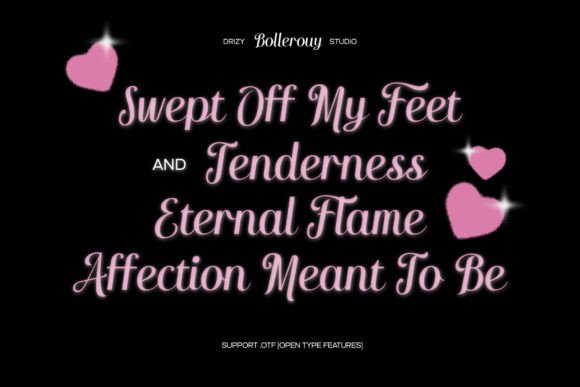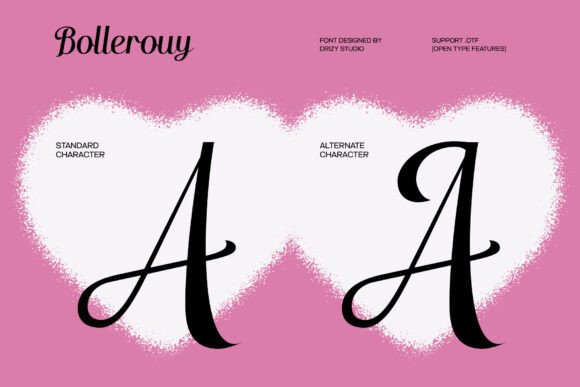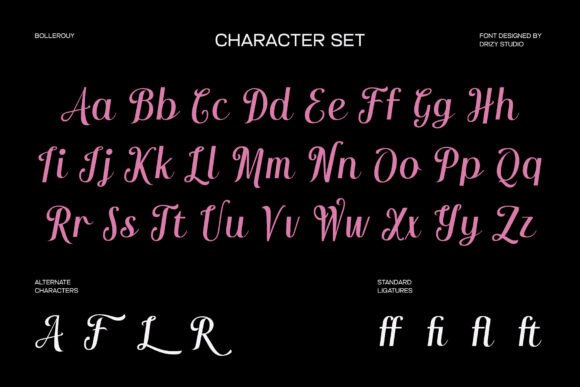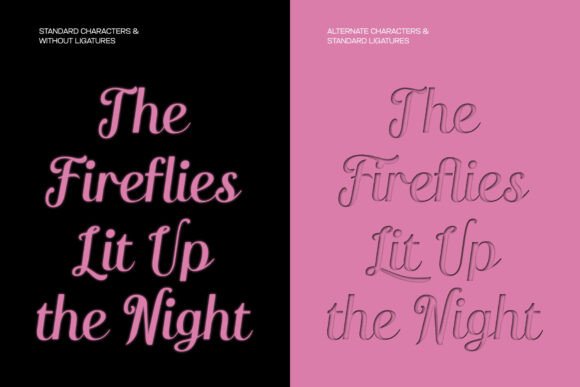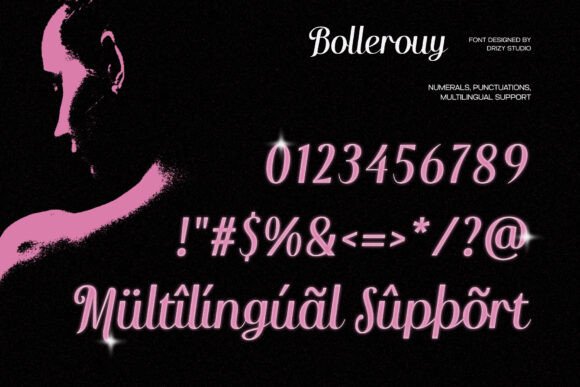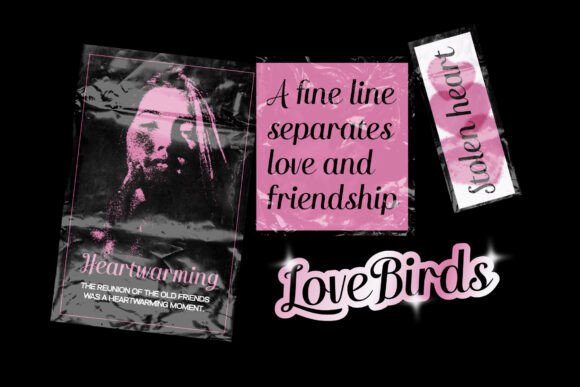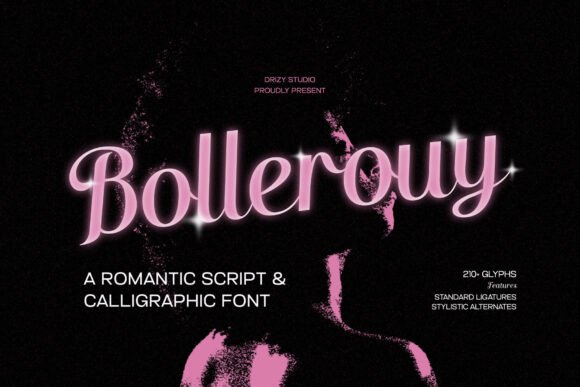
Bollerouy Font: The Ultimate Fusion of Script Elegance and Calligraphic Artistry
In the world of typography, few fonts capture the essence of romance and nostalgia as beautifully as Bollerouy. This stunning script font is the perfect blend of elegance and artistry, making it a must-have for designers and crafters looking to add a touch of sophistication to their projects. In this article, we’ll dive into the world of Bollerouy, exploring its unique features, uses, and benefits.
The Essence of Bollerouy
Bollerouy is more than just a font – it’s a work of art. Designed to evoke the emotions of dreamers and Emo Romance enthusiasts, this font is characterized by its flowing curves, delicate details, and timeless sophistication. Whether you’re creating wedding invitations, love letters, or emo-inspired art, Bollerouy brings a touch of romance and elegance to every project.
Key Features of Bollerouy
- Script Elegance: Bollerouy boasts a beautiful script design, perfect for adding a touch of sophistication to any project.
- Calligraphic Artistry: The font’s calligraphic elements add a level of artistry and elegance, making it perfect for creative projects.
- Flowing Curves: Bollerouy’s flowing curves create a sense of movement and fluidity, adding to its romantic and nostalgic feel.
- Delicate Details: The font’s delicate details add a level of intricacy and beauty, making it perfect for designs that require a touch of whimsy.
Uses for Bollerouy
Bollerouy is a versatile font that can be used in a variety of creative projects, including:
- Wedding Invitations: Add a touch of romance and elegance to your wedding invitations with Bollerouy.
- Love Letters: Create beautiful, heartfelt love letters with Bollerouy’s flowing script.
- Emo-Inspired Art: Bollerouy’s unique design makes it perfect for emo-inspired art, adding a touch of nostalgia and passion.
- Typography Design: Use Bollerouy to create stunning typography designs that showcase its elegant script and calligraphic elements.
Pairing Bollerouy with Other Design Elements
To unleash the full potential of Bollerouy, pair it with dreamy color palettes and moody backdrops. This will help to create a cohesive design that showcases the font’s romantic and nostalgic feel.
- Dreamy Color Palettes: Soft pastels, muted tones, and rich jewel tones complement Bollerouy’s elegant design.
- Moody Backdrops: Add depth and atmosphere to your design with moody backdrops that evoke a sense of nostalgia and passion.
Transforming Words into Poetry
Bollerouy has the power to transform words into poetry, making it perfect for designers and crafters who want to add a touch of magic to their projects. With Bollerouy, every letter becomes a brushstroke of love, creating a beautiful and romantic narrative.
In conclusion, Bollerouy is a stunning script font that captures the essence of romance and nostalgia. With its flowing curves, delicate details, and timeless sophistication, it’s perfect for designers and crafters looking to add a touch of elegance to their projects. Whether you’re creating wedding invitations, love letters, or emo-inspired art, Bollerouy is the ultimate fusion of script elegance and calligraphic artistry.